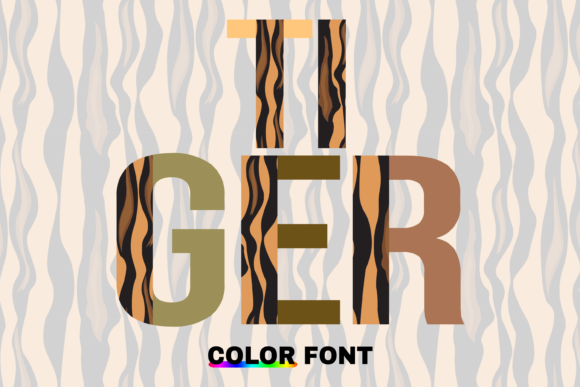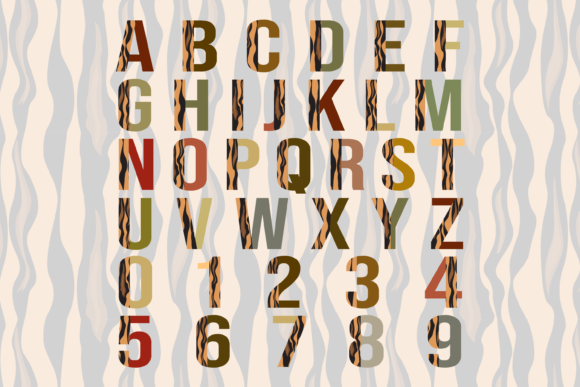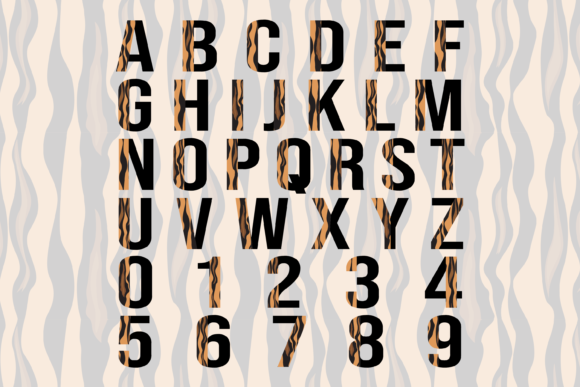
Tiger Font
About Tiger Font
Tiger is an incredibly cool and versatile color font featuring duo styles of black and color. With its unique design and special decorative elements, Tiger is the perfect choice for custom designs, DIY crafts, and any creative project that requires a touch of beauty and sophistication. Here’s why Tiger stands out:
1. Duo Styles: Tiger offers both black and color styles, allowing you to choose between a classic and elegant black font or a vibrant and eye-catching color font. You can use them together or separately, depending on your design needs, making Tiger highly adaptable and versatile.
2. Special Decorative Elements: Tiger is adorned with special decorative elements that add a unique charm to your designs. Whether it’s intricate patterns, subtle textures, or detailed illustrations, these elements are carefully designed to complement the font and enhance the visual appeal of your creations.
3. Customizable and Personalized: Tiger allows you to customize your designs with ease. Whether you’re creating logos, branding materials, invitations, or crafts, you can easily incorporate the font and its decorative elements to personalize your creations and make them truly unique.
4. Ideal for Crafts: Tiger is particularly well-suited for DIY crafts and projects. From handmade cards to scrapbooking, from personalized gifts to home decor, this font adds a special decoration and elevates the overall aesthetic of your craft projects.
6. Wide Range of Applications: Tiger can be used in a variety of design projects. Its versatility makes it suitable for branding, packaging, social media graphics, posters, apparel design, and more. Whether you’re working on personal projects or professional designs, Tiger will help you achieve a stunning and captivating result.
Embrace the beauty and versatility of Tiger as you embark on your custom designs, DIY crafts, and creative projects. Let the duo styles and special decorative elements of Tiger enhance the visual appeal and make your creations truly remarkable. Enjoy the freedom to personalize and create unique designs that leave a lasting impression. Tiger is an amazing choice for adding a lovely touch to your projects!